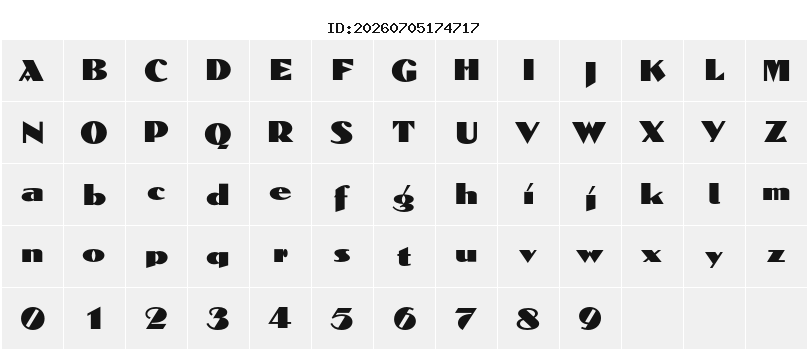
Dolmen Plain Preview
• Font Name: Dolmen Plain
Dolmen Plain.otf is a modern, elegant sans-serif font designed for ultimate readability and visual harmony. Perfect for branding, headlines, web design, and print materials.